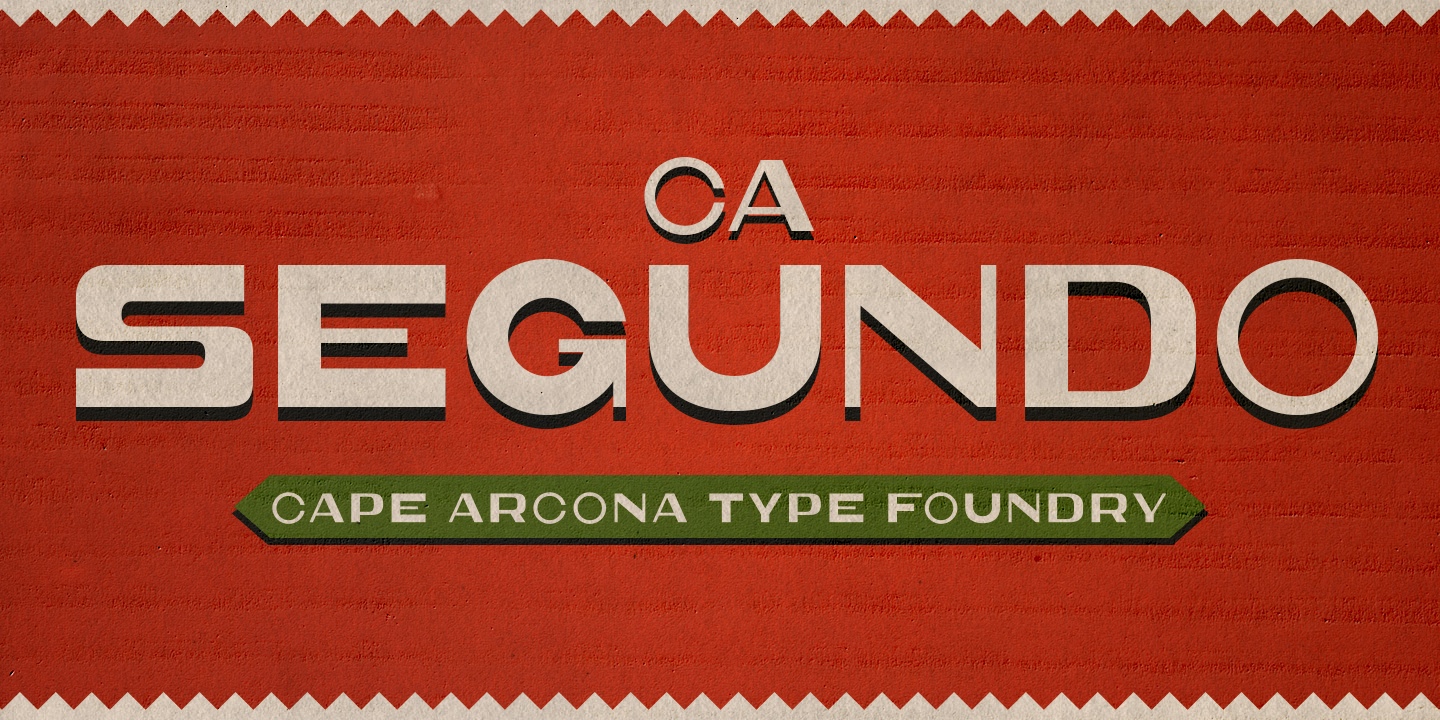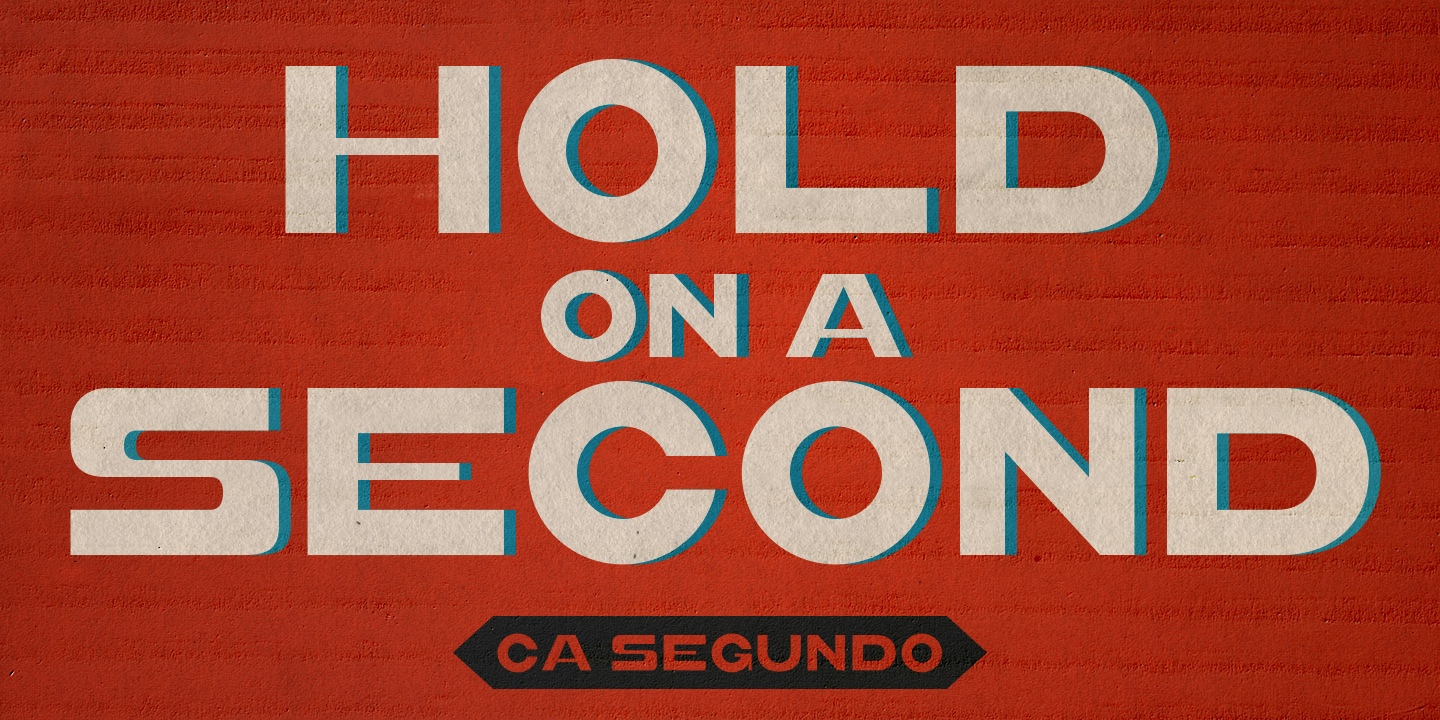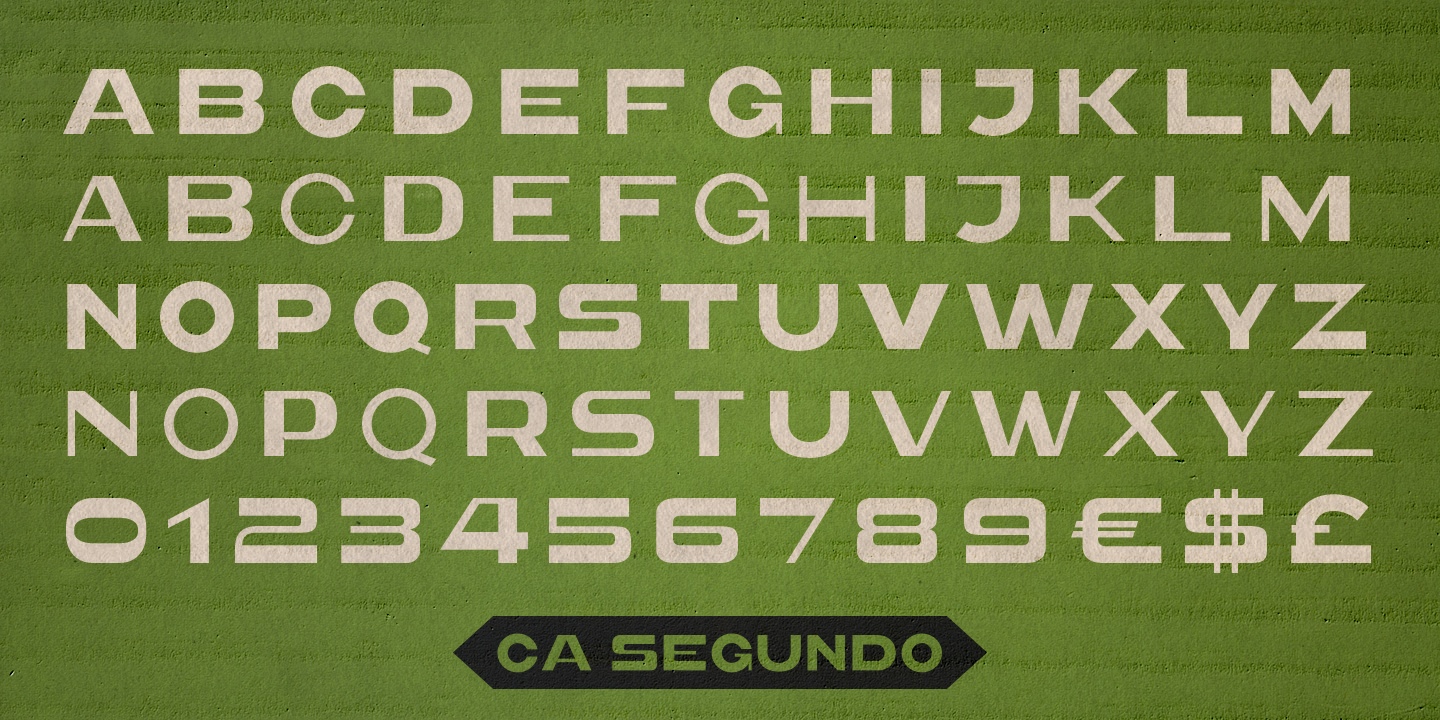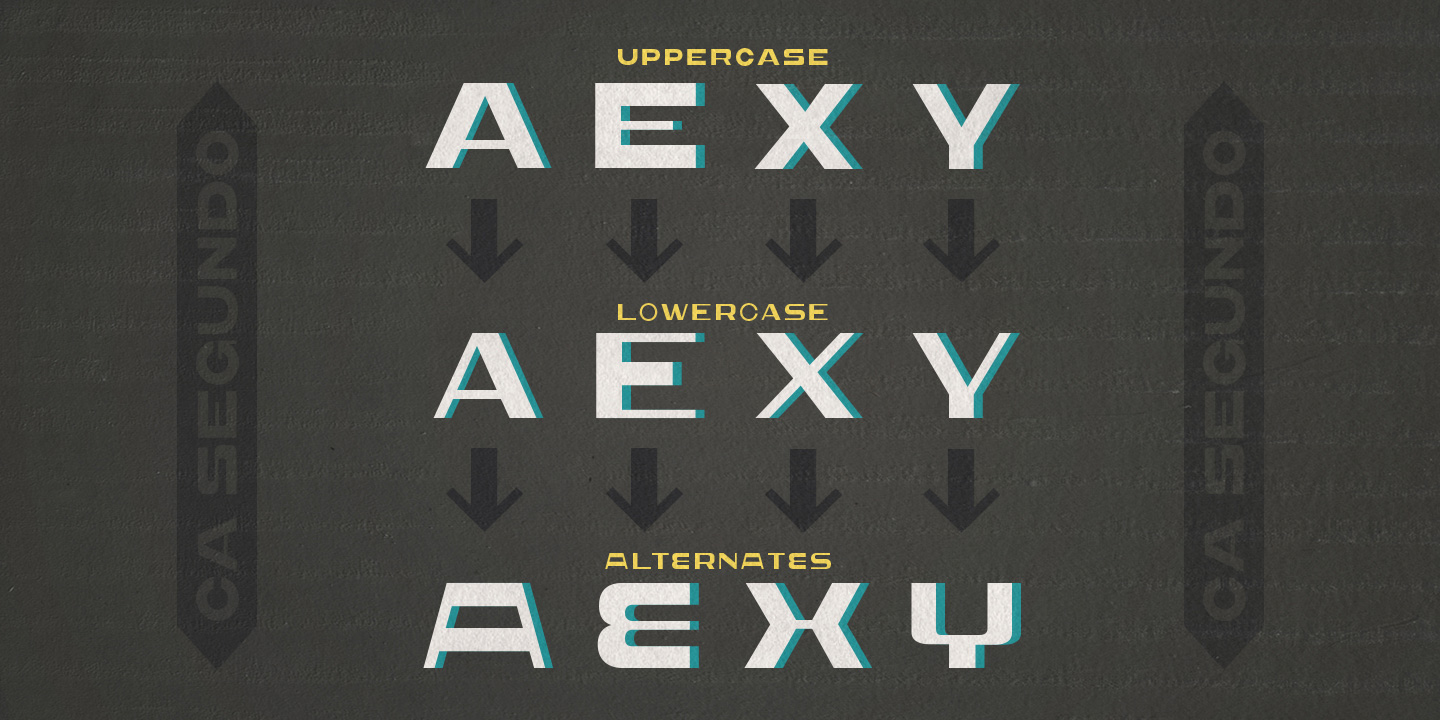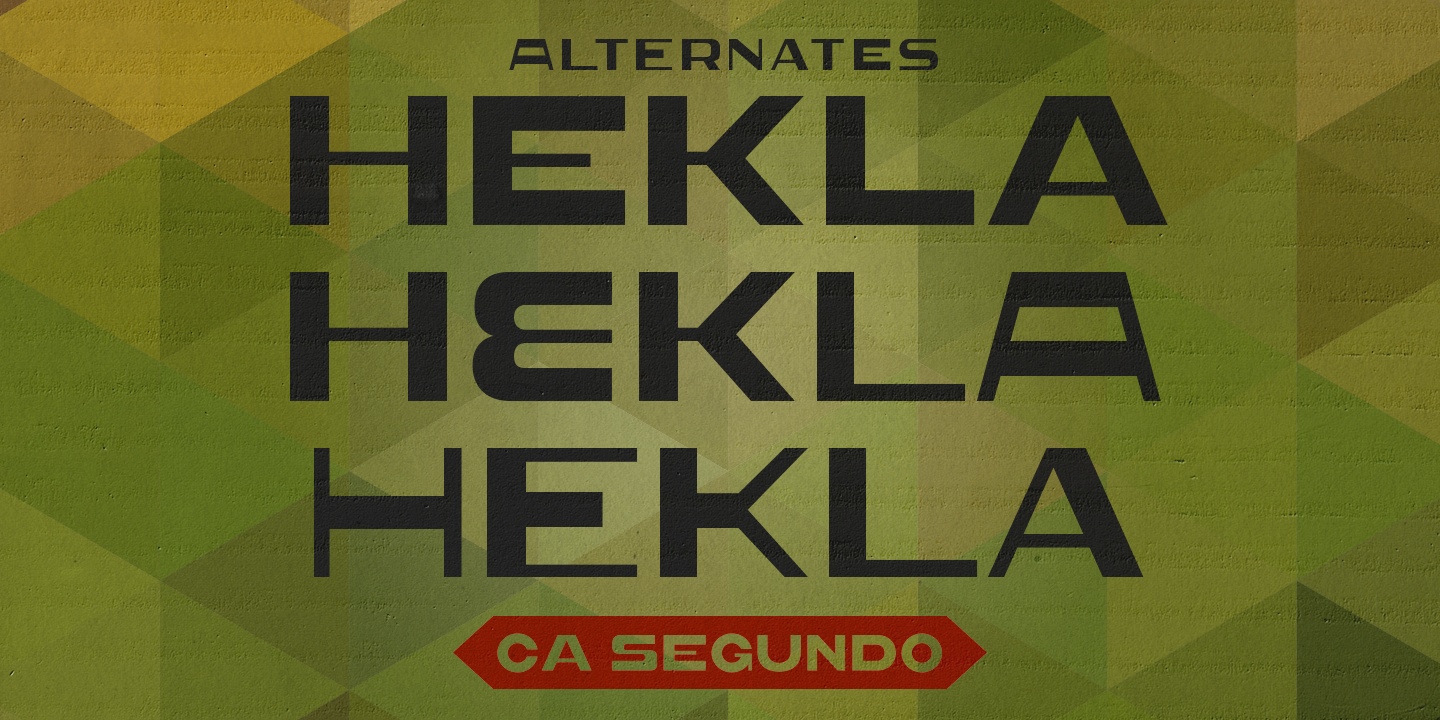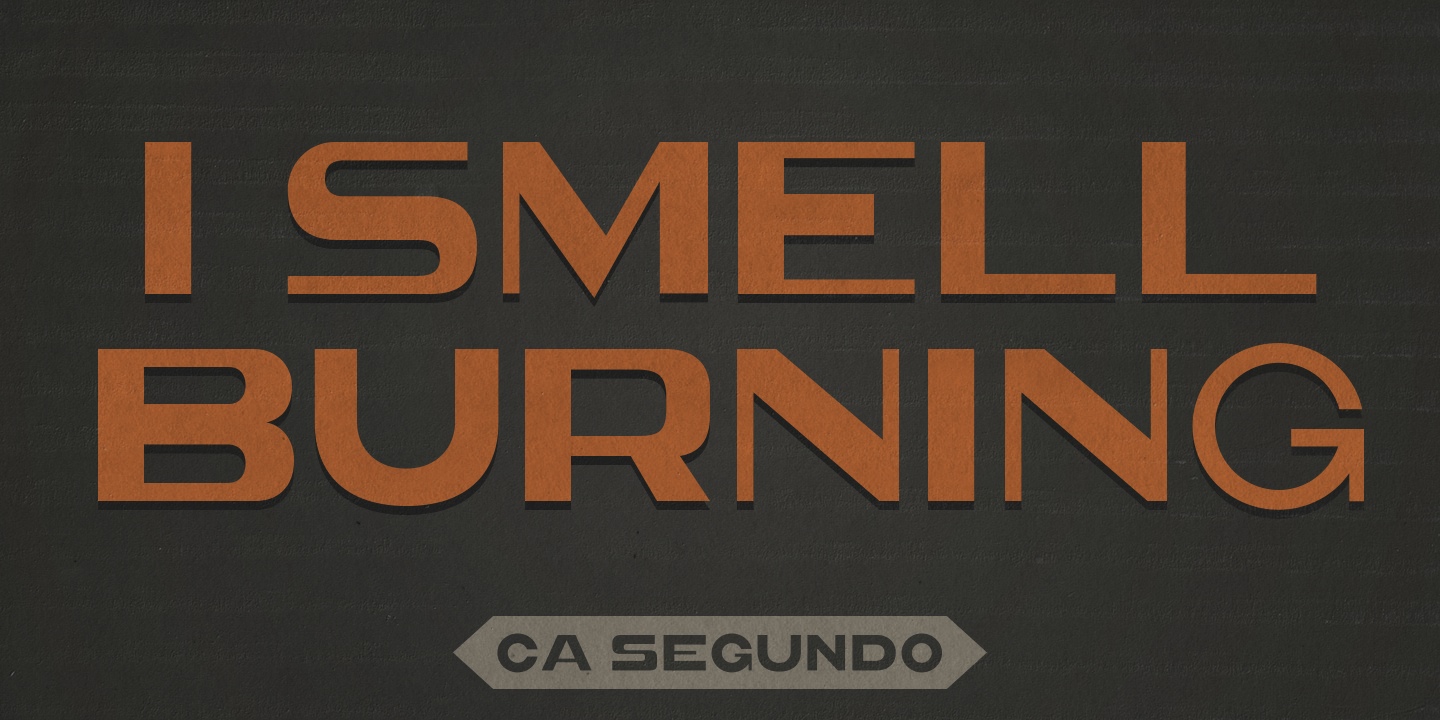
The inspiration for this font came from a wall-writing in Cuba. At first glance, we thought: “There is something wrong with the wall-writing.” But a closer look revealed, that it just mixed up different stroke-styles.
That “feature” became the designing principle behind CA Segundo: Round characters like O, U or C are available either with a fat or a thin stroke, whereas other characters with orthogonal lines come in two different styles. Uppercase characters emphasize the vertical strokes, while lower cases emphasize the horizontal strokes.
This gives you the opportunity to design just while you type.